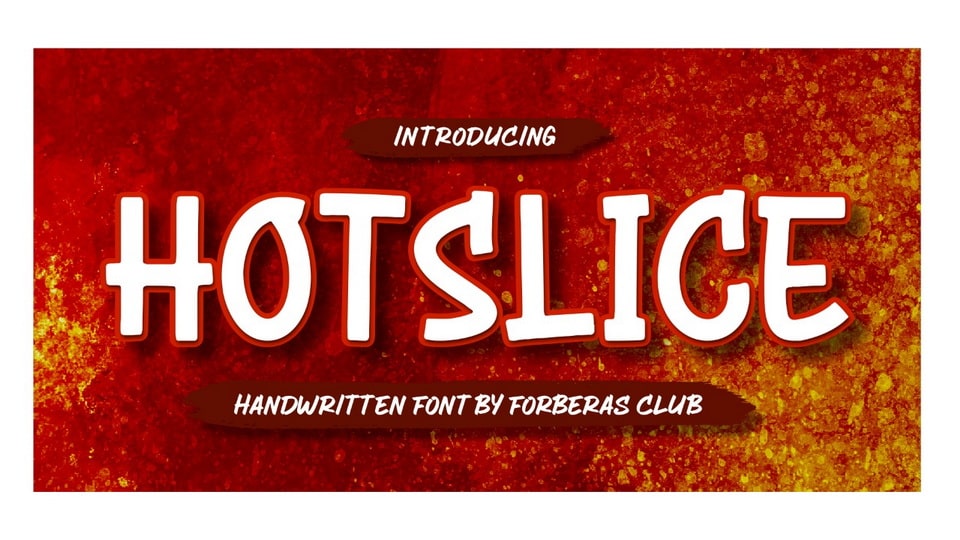
Download Hot Slice font, a hand lettered typeface designed for luxury, funny and playful projects. Hot Slice font is perfect for creating modern and chic designs such as logos, packaging, editorials and more.